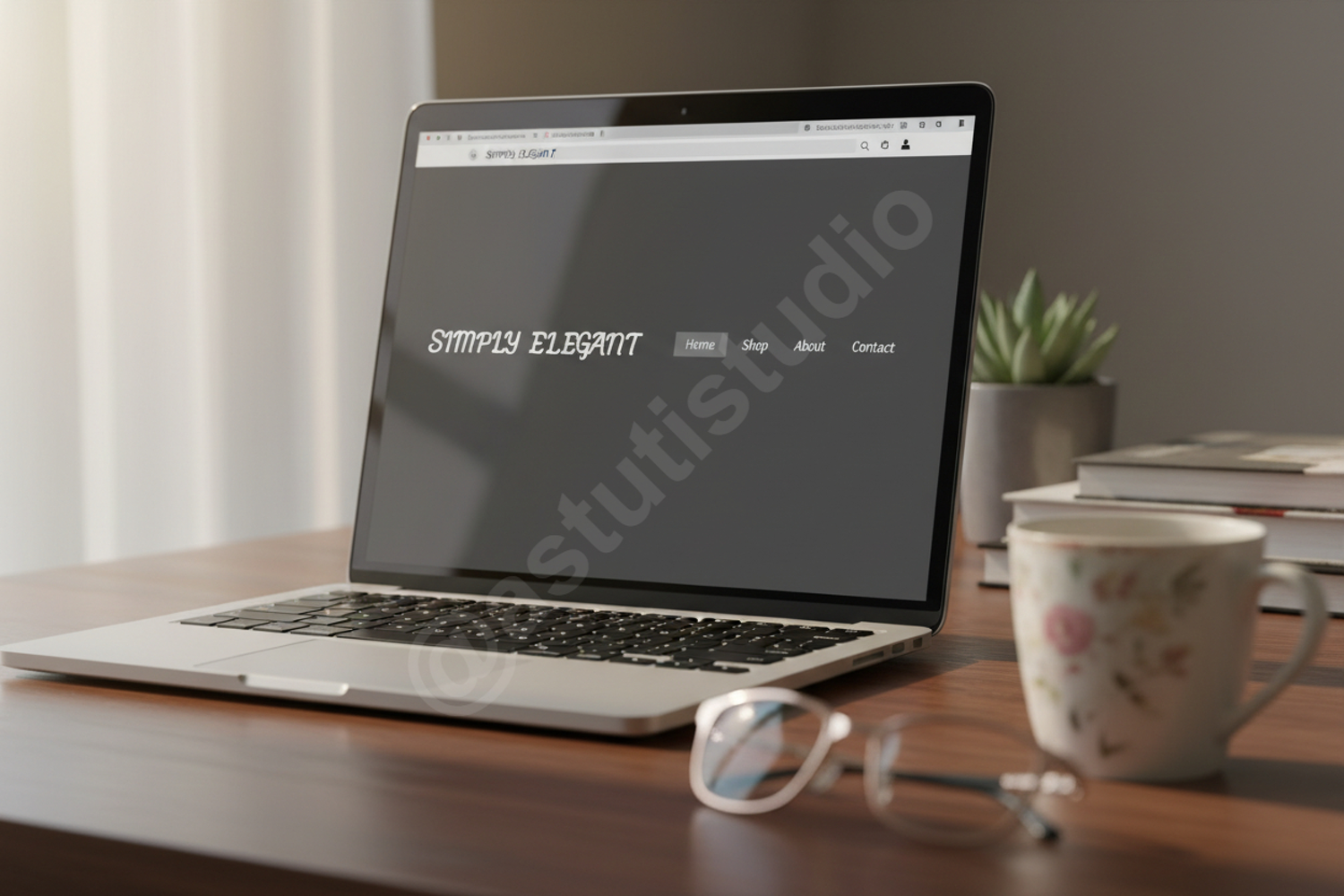
Jula - Elegant Modern Serif Typeface
Jula
Jula is a premium serif font that embodies sophistication and timeless elegance. Designed with a perfect balance of high-contrast strokes and clean lines, Jula brings a touch of luxury to any creative project. Whether you are looking to elevate a brand identity or create stunning editorial layouts, this font offers the versatility and professional polish your work deserves.
- Full set of standard alphabet and punctuation
- Unique ligatures and alternative characters
- Comprehensive multilingual support
- Luxury Branding and Visual Identity
- High-end Wedding Invitations and Stationery
- Editorial Design and Magazine Layouts
- Professional Logo Design
- Chic Social Media Graphics and Quotes
- Product Packaging and Labels